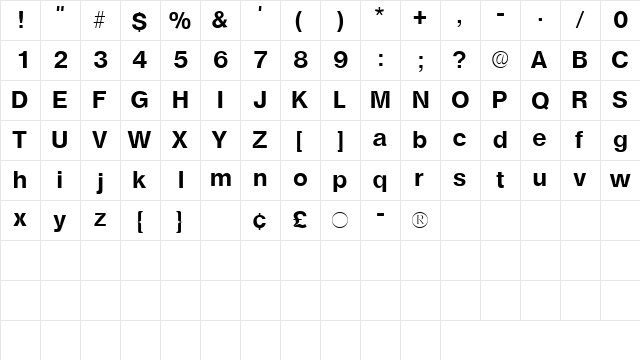
ChoqueSSK Regular
Design Context for ChoqueSSK Typeface
ChoqueSSK is a composed and adaptable typeface that performs quietly and consistently across a wide range of design contexts.